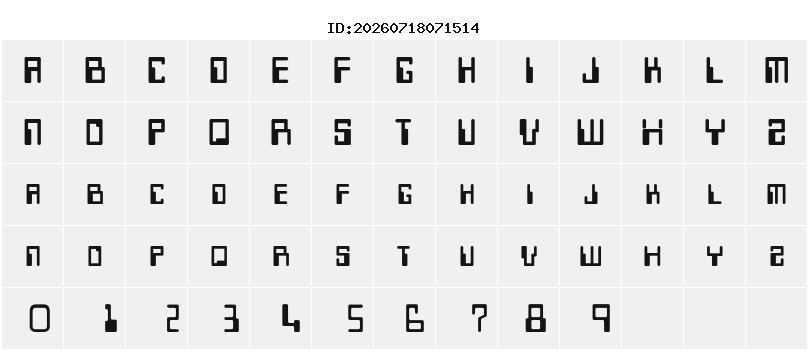
CheckStub Preview
• Font Name: CheckStub
• Full Font Name: CheckStub
• PostScript Name: CheckStub
About CheckStub.ttf
CheckStub.ttf is a modern, elegant sans-serif font designed for ultimate readability and visual harmony. Perfect for branding, headlines, web design, and print materials.